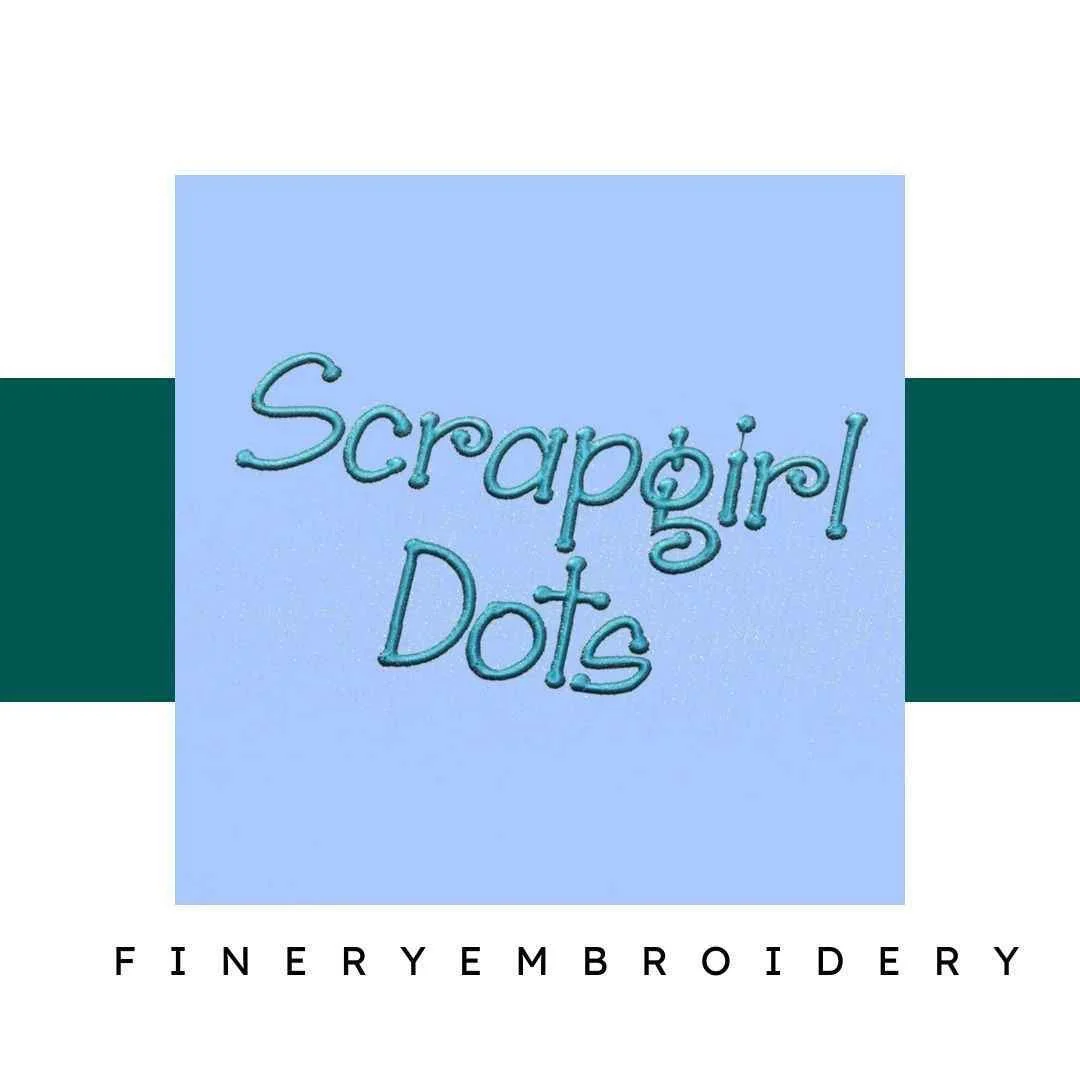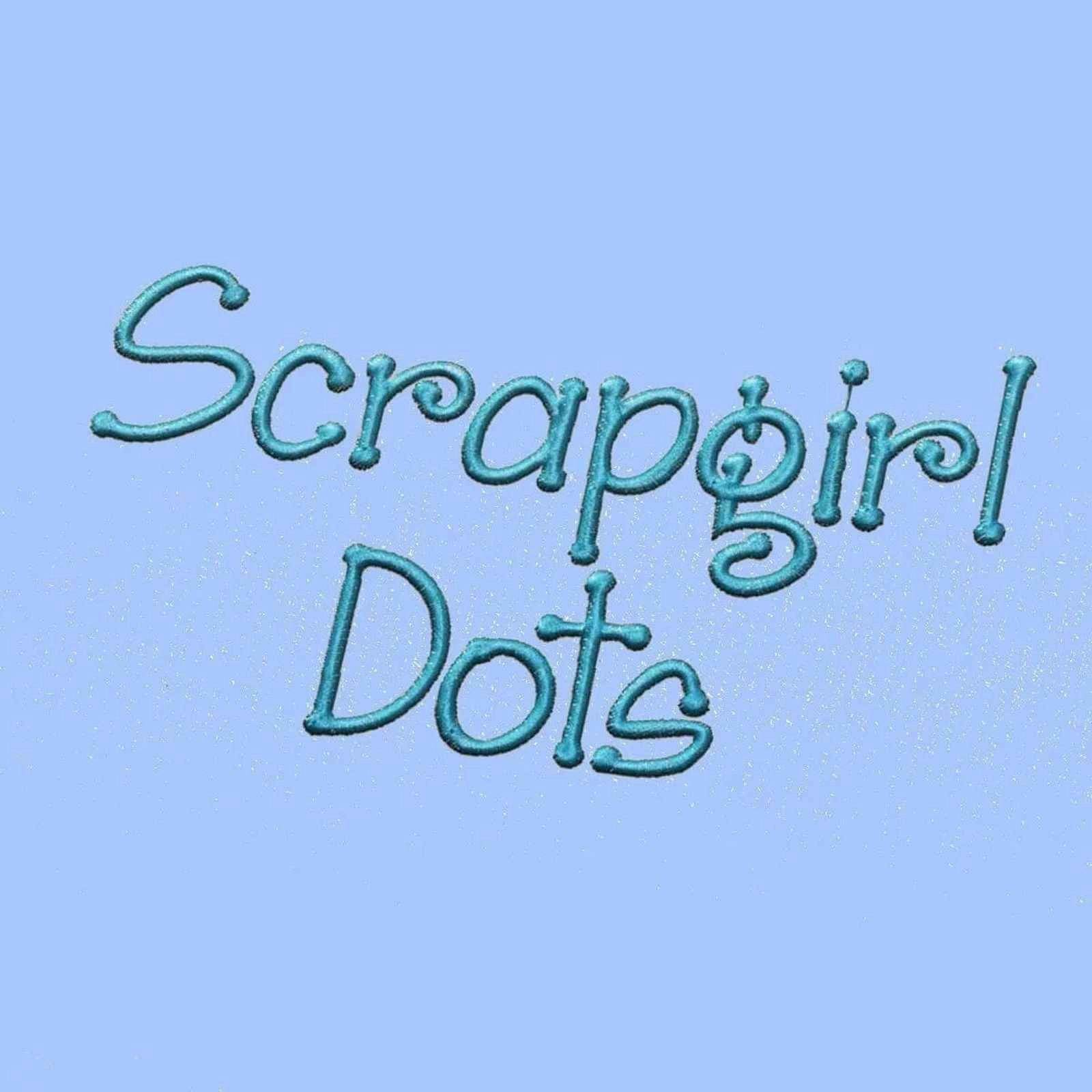
Scrapgirl Dots Embroidery alphabet Font Set
Transform your embroidery projects with the Scrapgirl Dots Embroidery Alphabet Font Set, where elegance meets creativity at every turn!
Introducing the Scrapgirl Dots Embroidery Alphabet Font Set, a must-have for embroidery enthusiasts who crave a blend of sophistication and charm in their creations. This beautifully crafted font set features intricate dotted designs, making it the perfect companion for personalized clothing, home decor, accessories, and more. Elevate your embroidery experience and bring your artistic visions to life!
Why You'll Love This Design
Each letter in the Scrapgirl Dots Embroidery Alphabet Font Set features a unique dotted motif, ensuring that your projects radiate elegance and detail. Whether you're working on everyday items or special occasion pieces, this versatile set provides the perfect finishing touch, showcasing your creativity and style.
Creative Applications
From customizing jackets to enhancing home decor, the Scrapgirl Dots Embroidery Alphabet Font Set opens up a world of creative possibilities. Use it to personalize gifts, make bespoke accessories, or add a whimsical touch to any project. The only limit is your imagination!
Digitized for Passionate Embroiderers
We know how important flawless results are to passionate embroiderers. That's why we've meticulously digitized this font set, ensuring professional-quality outcomes every time. Our team of embroidery lovers has infused their passion into every detail, guaranteeing that your projects shine with clarity and originality.